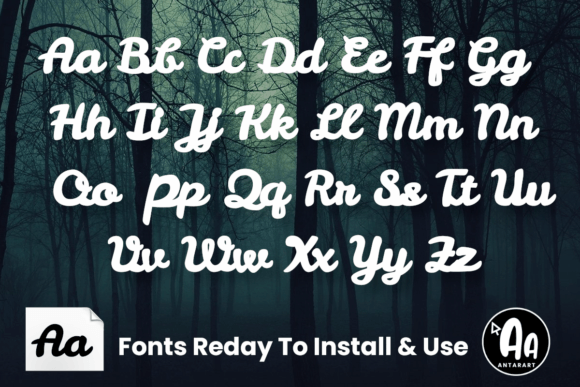
Ramla Font
Ramla Script is an elegant font with two weights where the lowercase and uppercase letters are connected. It is a great font that can generate beautiful names or romantic posters and logos, compatible with laser cutting machines (wood, plastic…)
Note: (this font is based on the Leckerli One open-source font and edited to be wholly joined and compatible with CNC machines).